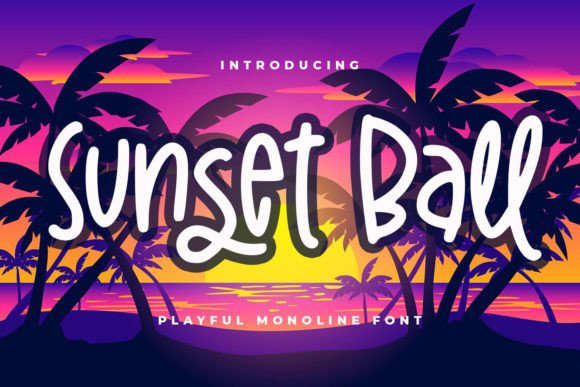
In a world where creativity reigns supreme, Sunset Ball font emerges as a captivating symphony of strokes, a monoline masterpiece that evokes the essence of summer. Its playful nature dances across your screen, beckoning you to embark on a visual adventure. The designers from Abodaniel have meticulously crafted each letterform, ensuring that Sunset Ball Font leaves an indelible mark on your designs.
Whether you're a seasoned graphic artist or just starting your design journey, Sunset Ball Font is the perfect companion. Its versatility shines across a myriad of applications, from branding and logos to t-shirt designs and social media graphics. Allow your imagination to soar as you witness your words transformed into captivating works of art.
With Sunset Ball Font, the ordinary becomes extraordinary. Its graceful curves and elegant lines instill a sense of whimsy and charm into every project. Let your creativity bask in the summer sun as you unleash the potential of this remarkable font. Dive into the world of Sunset Ball Font and discover a universe of possibilities.
Immerse yourself in the joy of designing with Sunset Ball Font, a celebration of creativity that will ignite your passion and leave you craving more. Seize the opportunity to elevate your designs to new heights and create masterpieces that resonate with your audience.